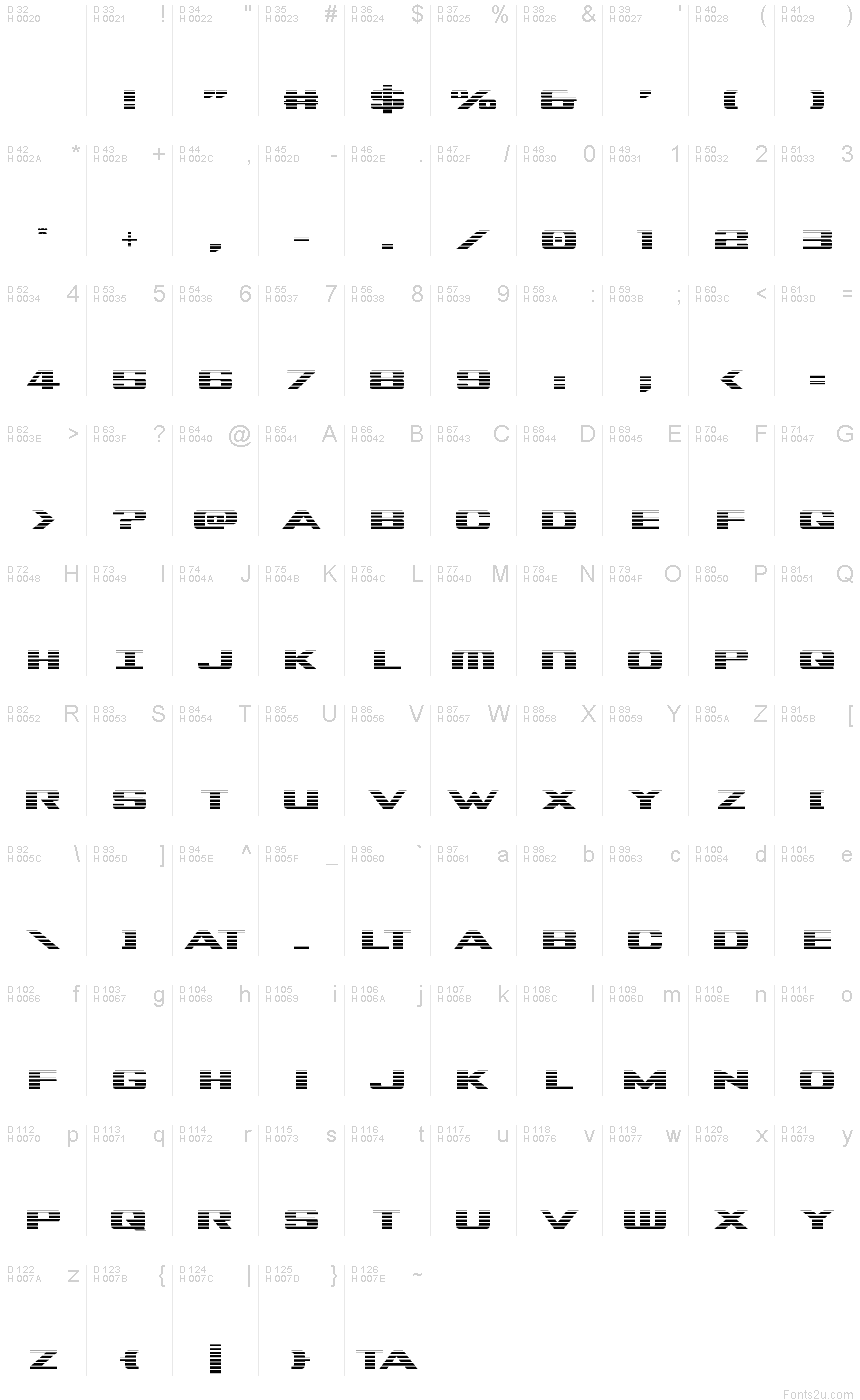
Tigershark Gradient from Iconian Fonts is a free modern striped display font dated 2013. Its broad caps are sliced into even horizontal bands, with rounded inner corners and sharp diagonal cuts giving the alphabet a fast, mechanical profile.
That speed-line pattern connects directly with racing graphics and sports emblems. It also suits arcade game screens, electronic album covers, and event posters built around motion or impact. The repeated bands can extend into background stripes or scan-line artwork, making the lettering part of the image itself.